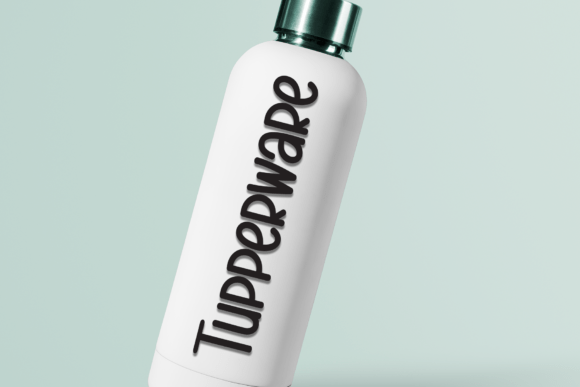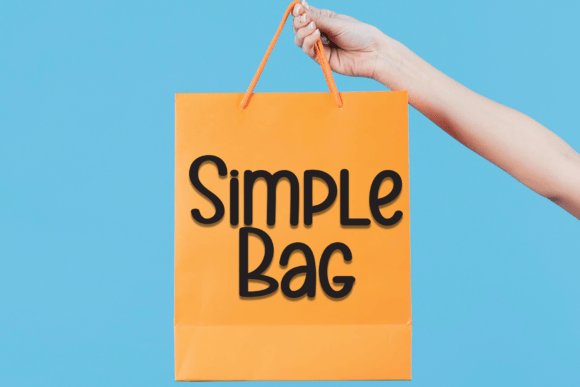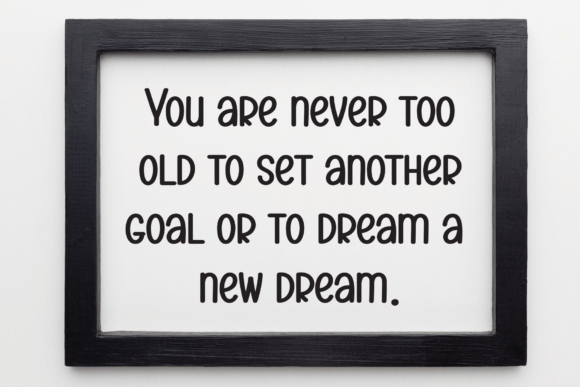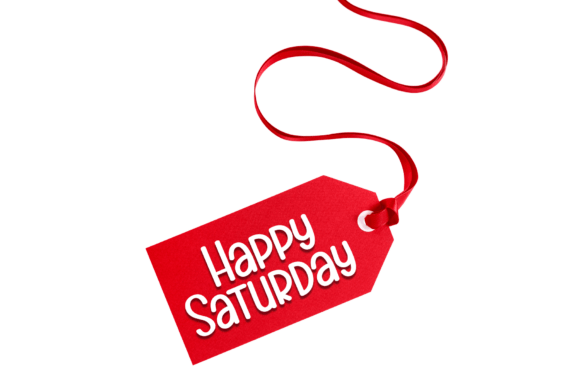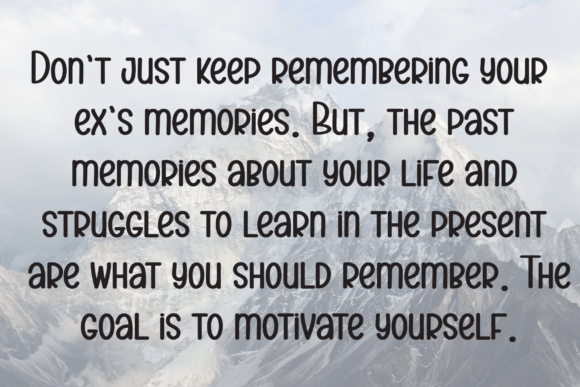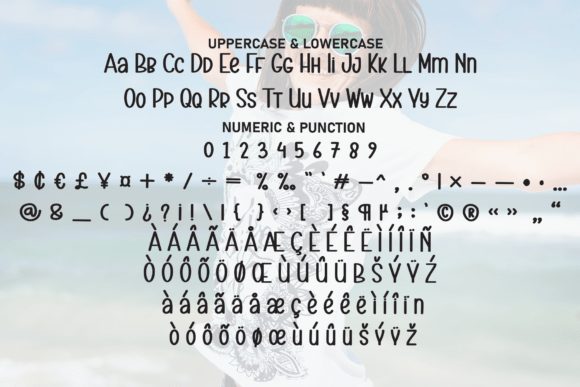
Introducing Happy Holiday Font: The Perfect Addition to Your Design Collection
Are you tired of using the same old fonts for your designs? Look no further! Happy Holiday Font is a casual and neat display font that radiates a fresh, friendly vibe. With clean lines and a relaxed structure, it’s perfect for packaging, posters, and social media graphics. In this article, we’ll dive into the features and benefits of Happy Holiday Font, and explore how it can add charm and clarity to your projects.
What is Happy Holiday Font?
Happy Holiday Font is a display font designed to bring a touch of warmth and approachability to your designs. Its clean lines and relaxed structure make it perfect for a variety of applications, from packaging and posters to social media graphics and more. The font’s friendly vibe is sure to capture the attention of your audience and leave a lasting impression.
Key Features of Happy Holiday Font
- Clean Lines: Happy Holiday Font features clean lines that give it a crisp and modern look. The font’s lines are smooth and uncomplicated, making it easy to read and understand.
- Relaxed Structure: The font’s relaxed structure gives it a casual and approachable feel. This makes it perfect for designs that require a friendly and welcoming tone.
- Fresh and Friendly Vibe: Happy Holiday Font radiates a fresh and friendly vibe that’s sure to capture the attention of your audience. The font’s friendly tone makes it perfect for designs that require a personal touch.
- Polished Appearance: Despite its casual nature, Happy Holiday Font maintains a polished appearance that’s perfect for professional designs. The font’s clean lines and relaxed structure give it a sophisticated look that’s sure to impress.
Benefits of Using Happy Holiday Font
So, why should you use Happy Holiday Font in your designs? Here are just a few benefits of using this amazing font:
- Adds Charm and Clarity: Happy Holiday Font adds charm and clarity to your designs, making them more engaging and effective.
- Perfect for Packaging and Posters: The font’s clean lines and relaxed structure make it perfect for packaging and posters. It’s sure to capture the attention of your audience and leave a lasting impression.
- Great for Social Media Graphics: Happy Holiday Font is also great for social media graphics. Its friendly vibe and polished appearance make it perfect for creating engaging and professional-looking graphics.
- Easy to Read and Understand: The font’s clean lines and simple structure make it easy to read and understand. This is especially important for designs that require a clear and concise message.
How to Use Happy Holiday Font in Your Designs
Using Happy Holiday Font in your designs is easy! Here are a few tips to get you started:
- Pair it with Other Fonts: Happy Holiday Font pairs well with other fonts, especially those with a similar friendly vibe. Try pairing it with a sans-serif font for a modern and clean look.
- Use it for Headings and Titles: The font’s bold and playful nature makes it perfect for headings and titles. Use it to add a touch of personality to your designs.
- Experiment with Colors: Happy Holiday Font looks great in a variety of colors. Experiment with different colors to find the perfect one for your design.